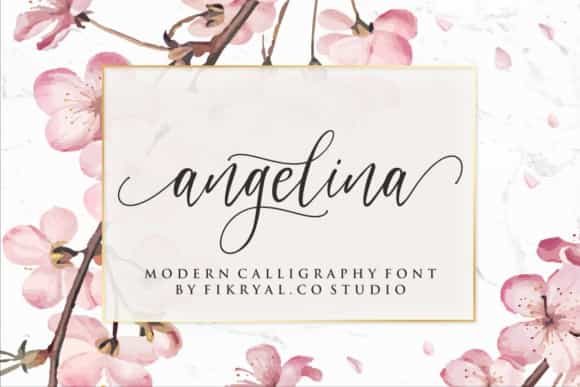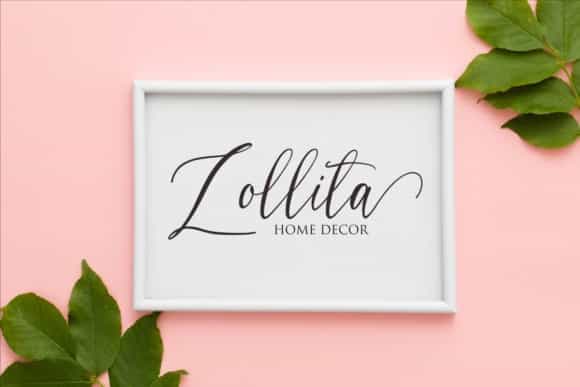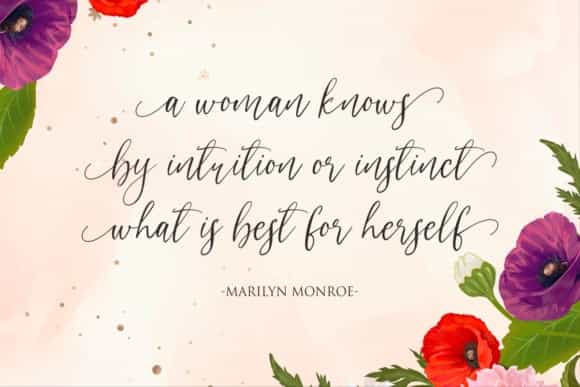
Introduce Angelina Font, a Hand Lettered Calligraphy Font with the waves of beauty and natural flowing. have a special letter which is in a natural hand drawn style and has a softer and smoother character with finely connected every single character.